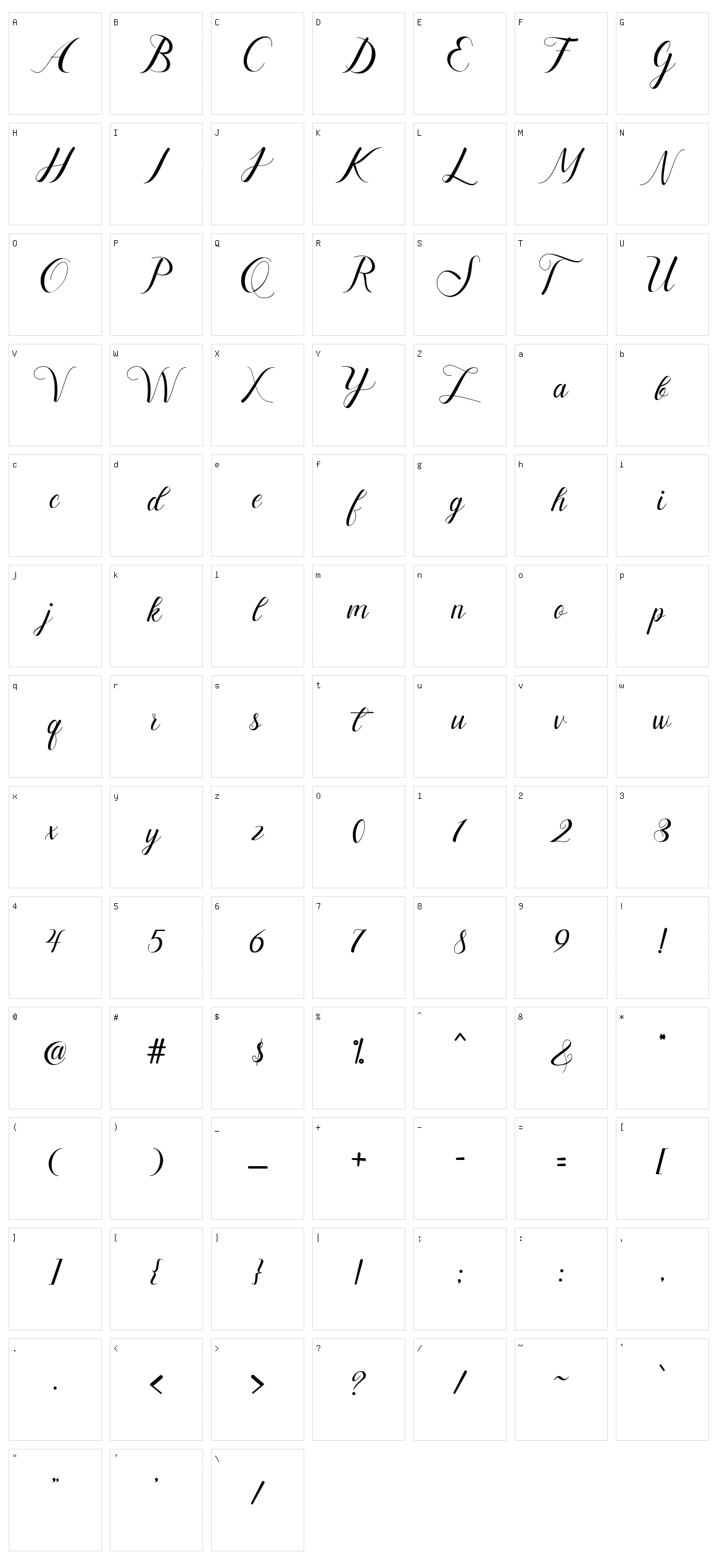
The free font Rosemarry is carefully designed by Portograph Studio, showcasing a thoughtful balance of creativity and usability and falls under the Script font style. When you download the ZIP file, it contains only 50.82 KB of font files, making it lightweight and quick to download. Please review the license details below to understand permitted usage and distribution rights. If license information is not available, we recommend using this font for personal projects only or contacting the author directly for commercial usage permissions.